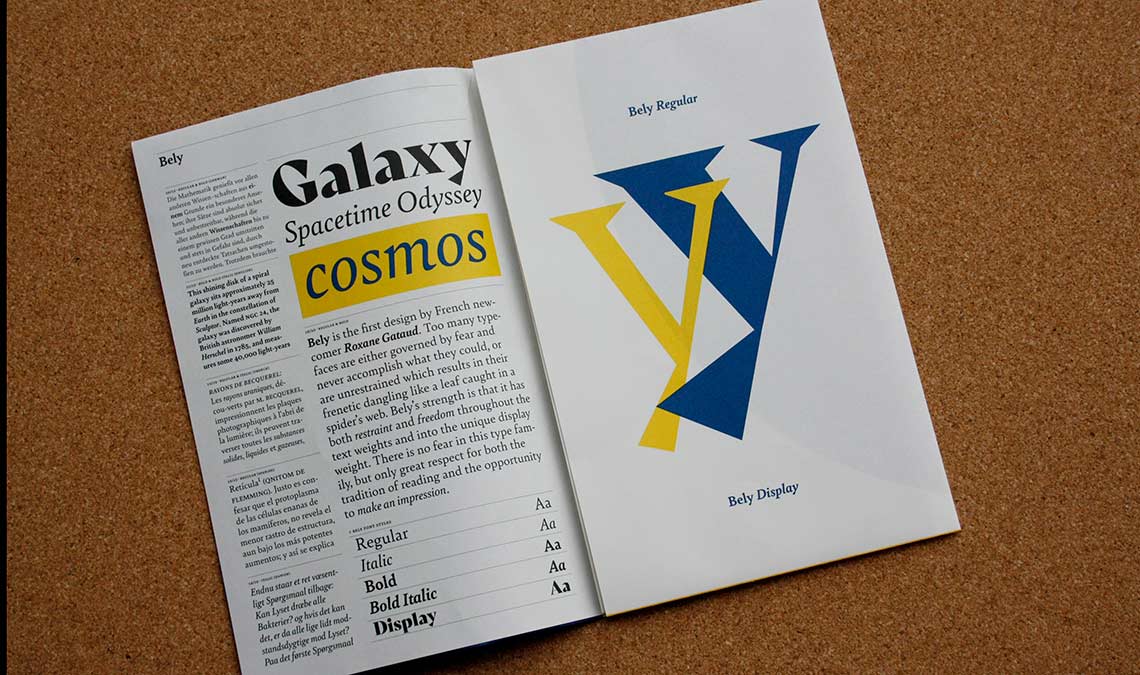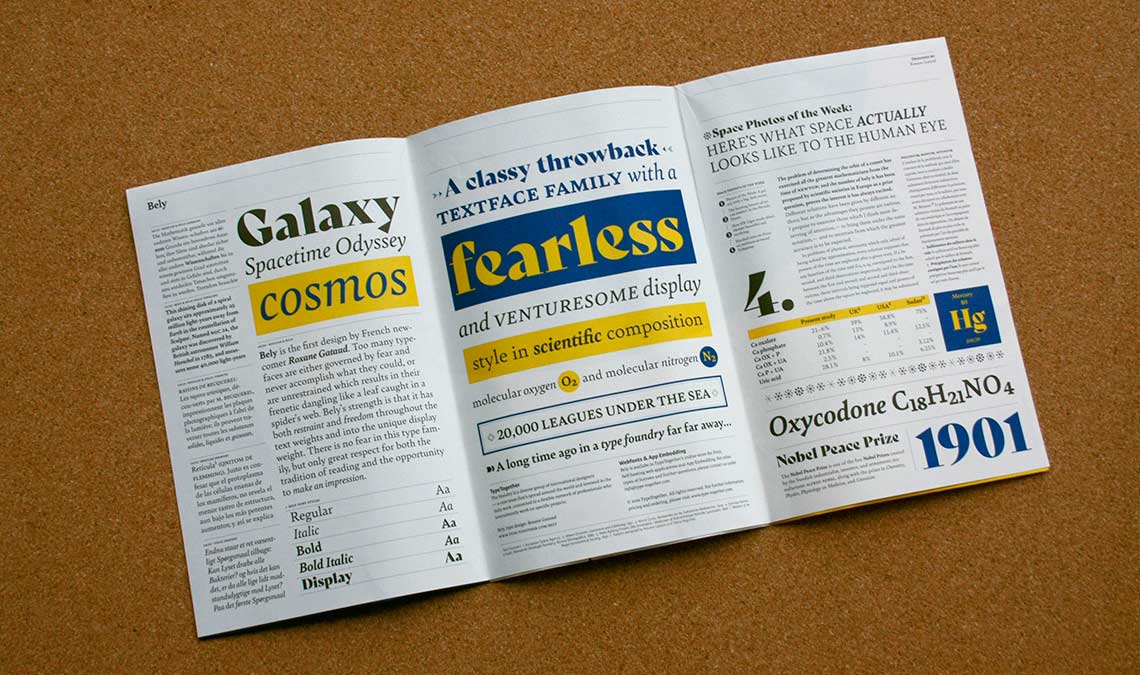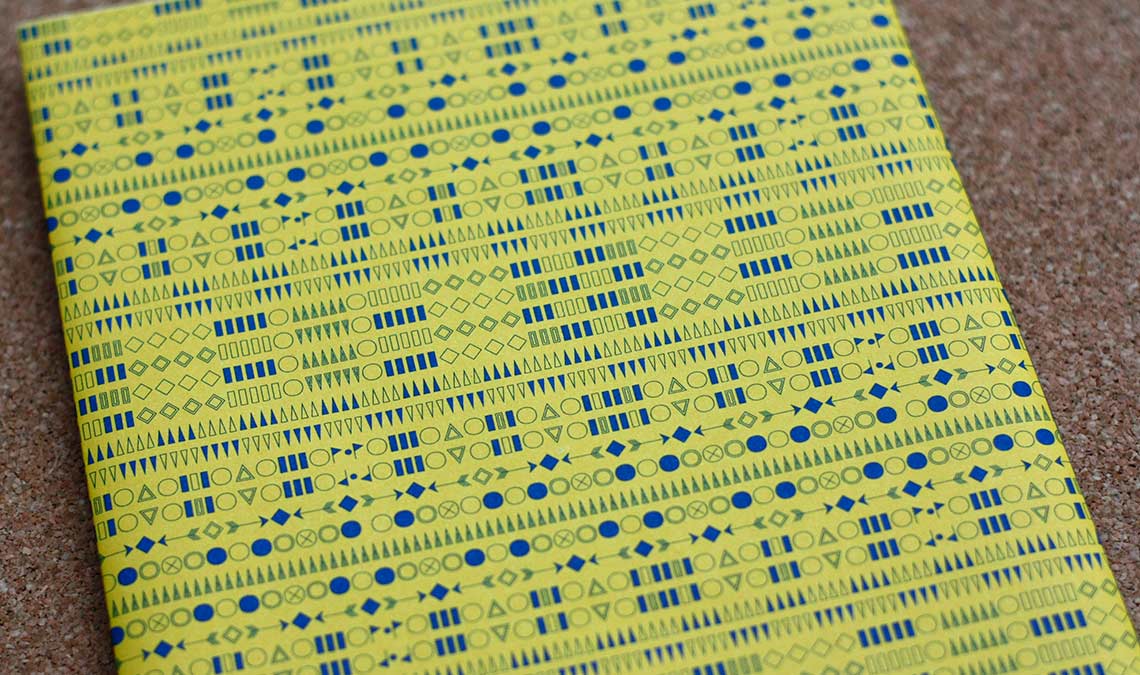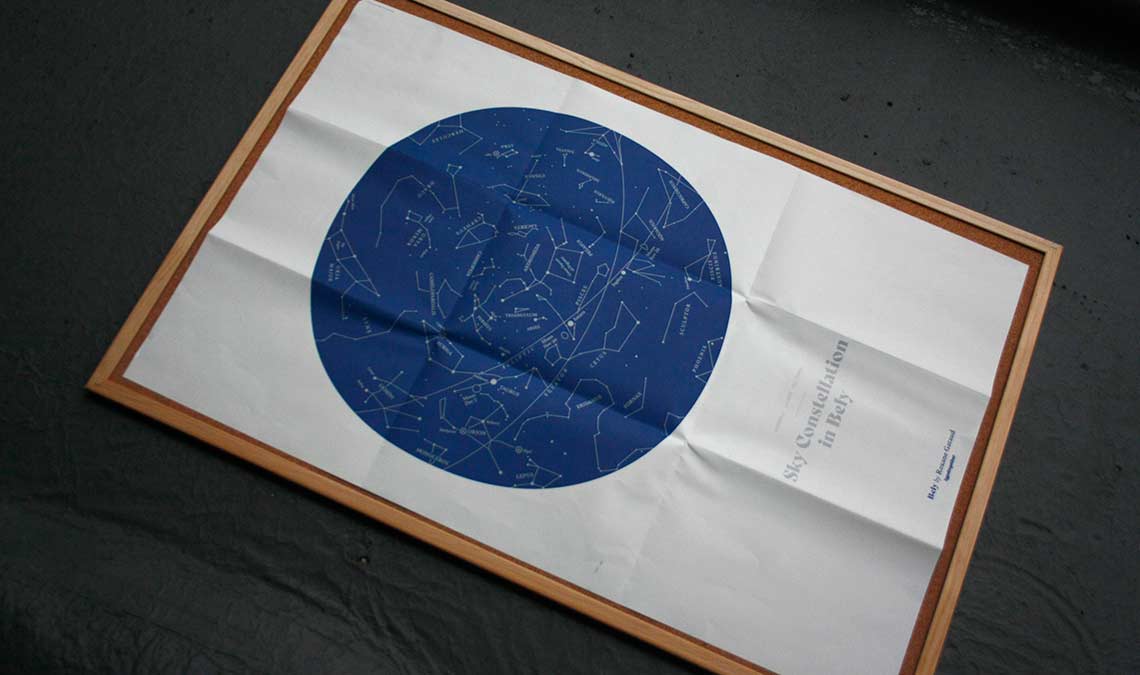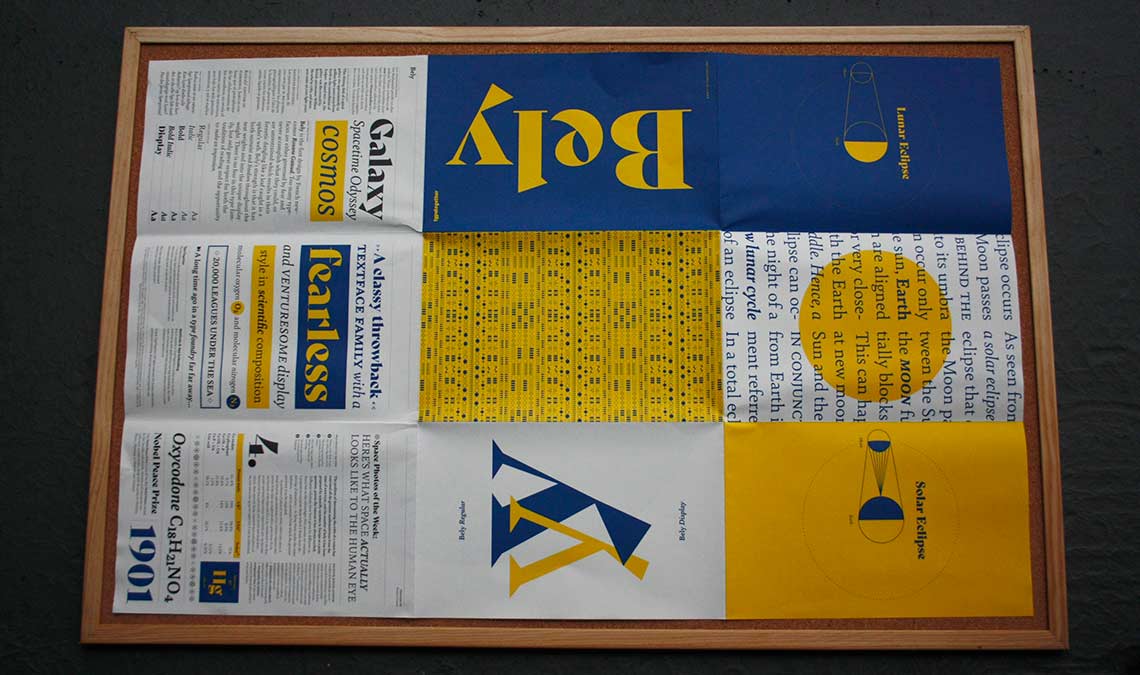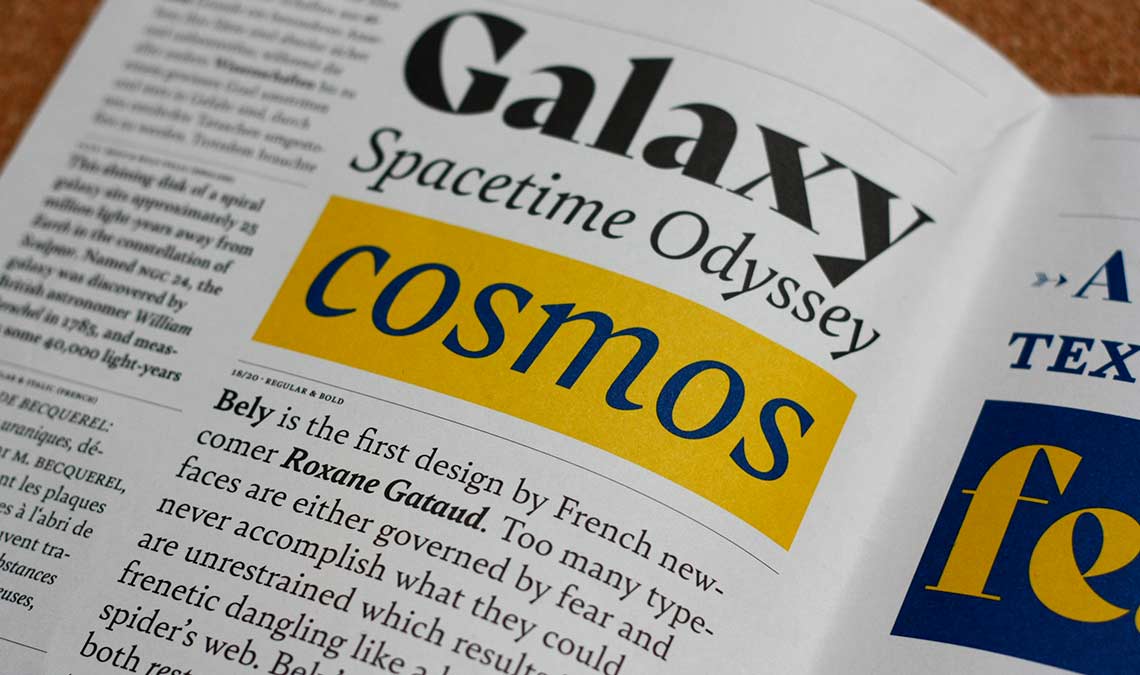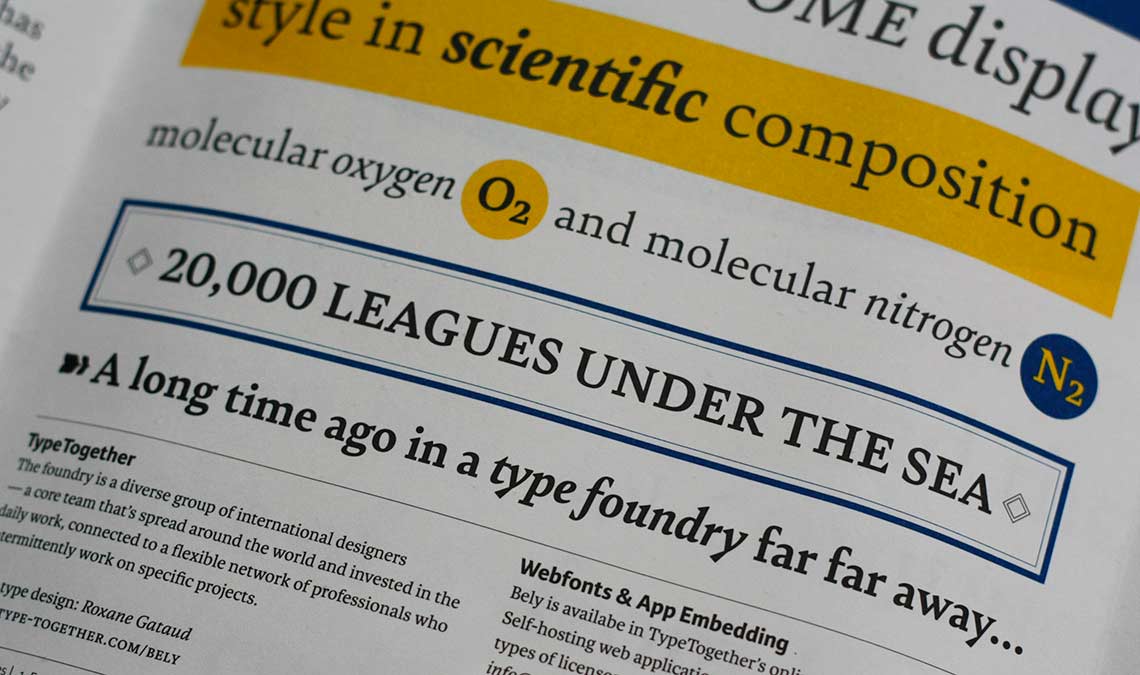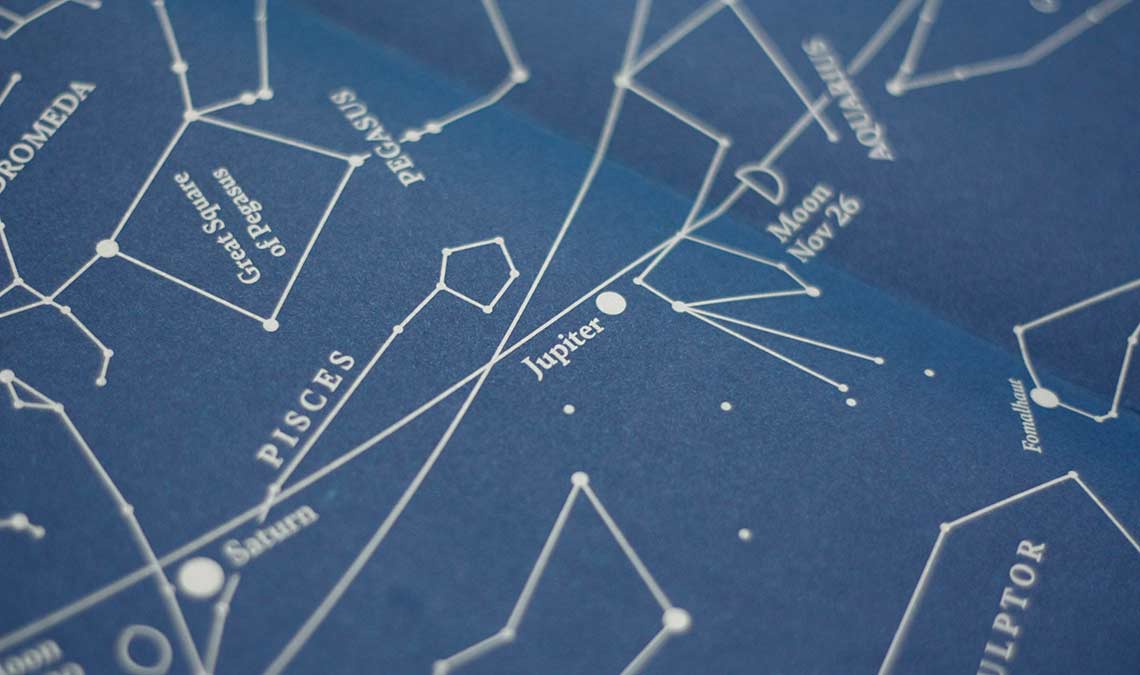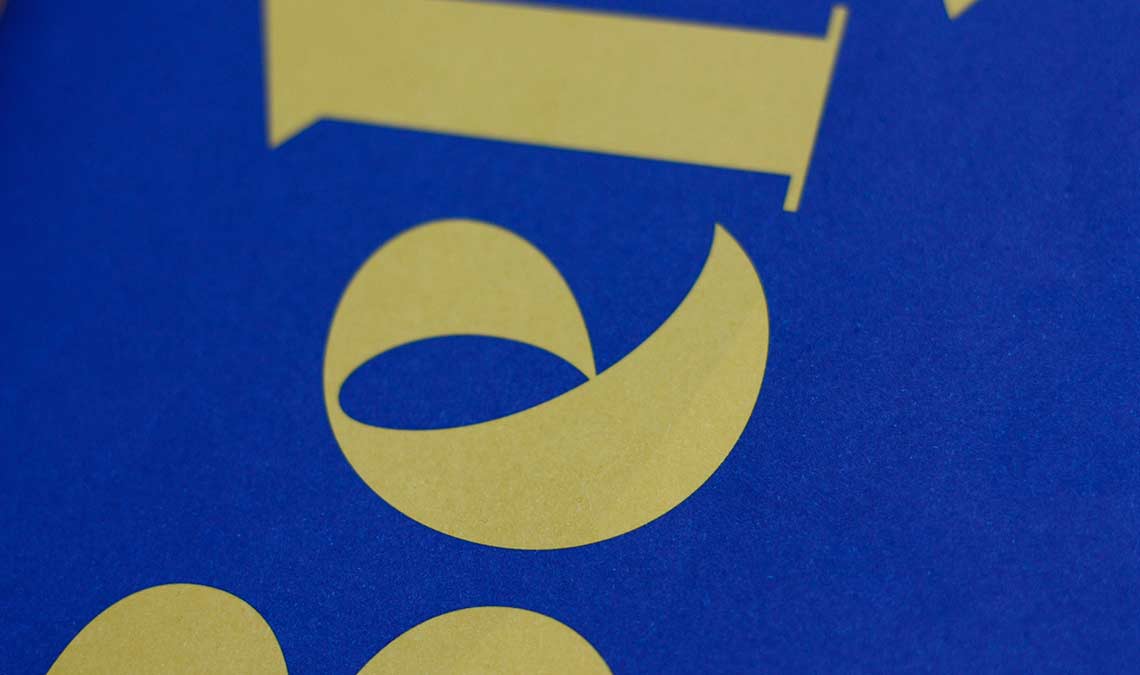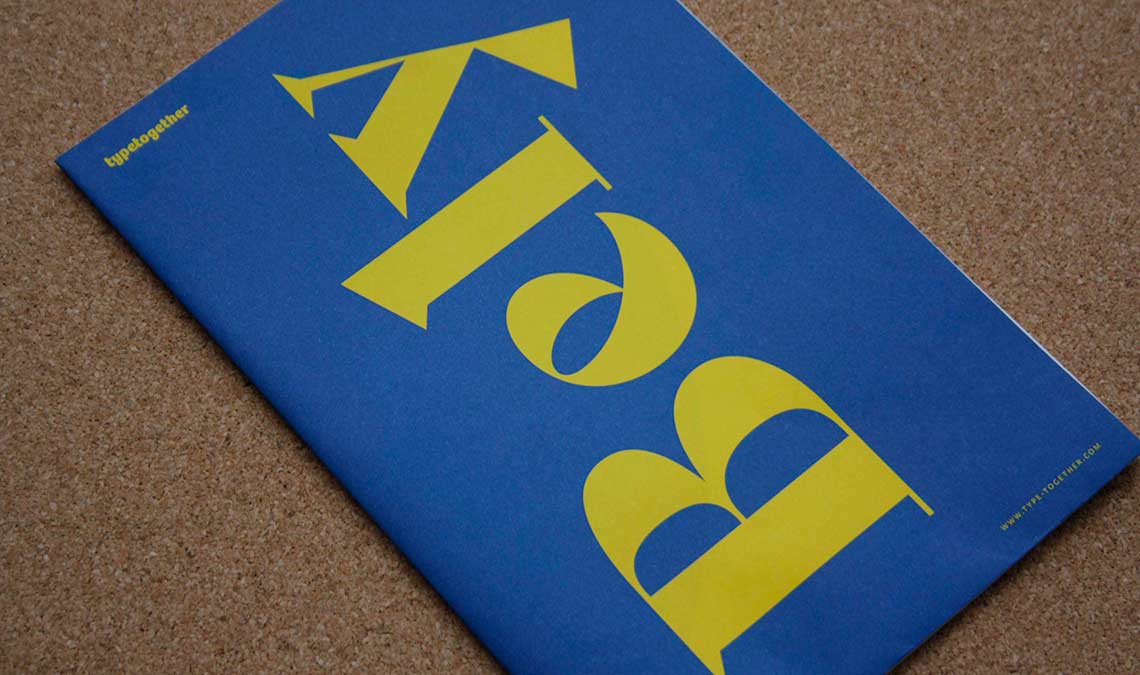
Bely poster specimen
Bely: 54×84 cm, two-sides three colour offset print over Munken Pure Smooth 120 gsm paper.
Talented designer Noel Pretorious with the supervision of Elena Veguillas has designed this beautiful poster featuring Bely, a classy throwback textface with a fearless and venturesome display by French newcomer Roxane Gataud. It has been printed by PB Tisk in Prague, Czech Republic.